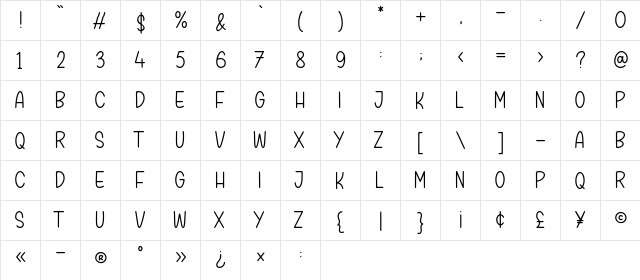
GOLDSTICK Regular
| Designer | Balpirick Studio |
Design Context for GOLDSTICK Typeface
GOLDSTICK offers clean, dependable letterforms without strong stylistic allegiance, making it a practical choice for designers who need flexibility.